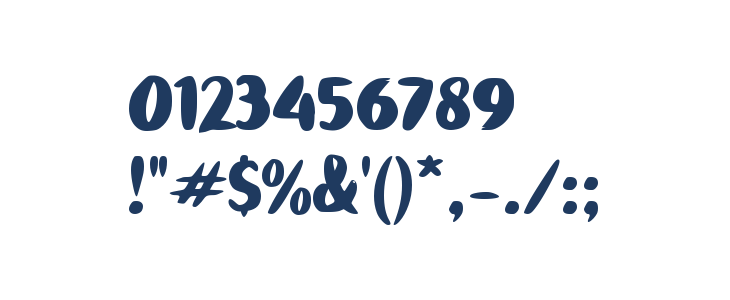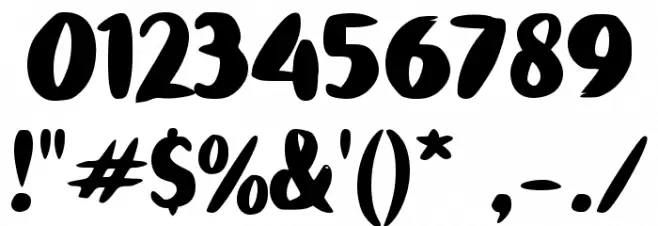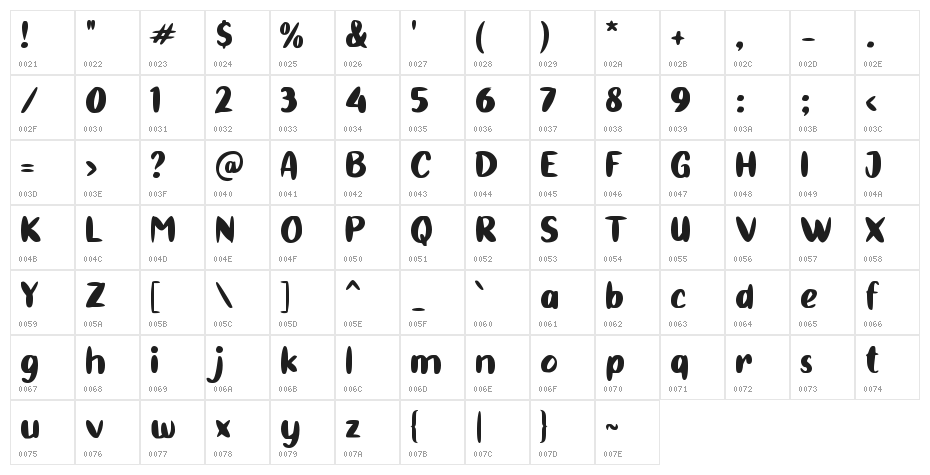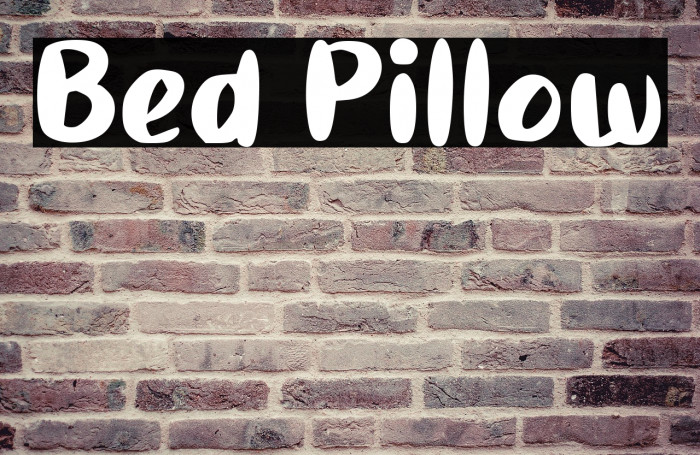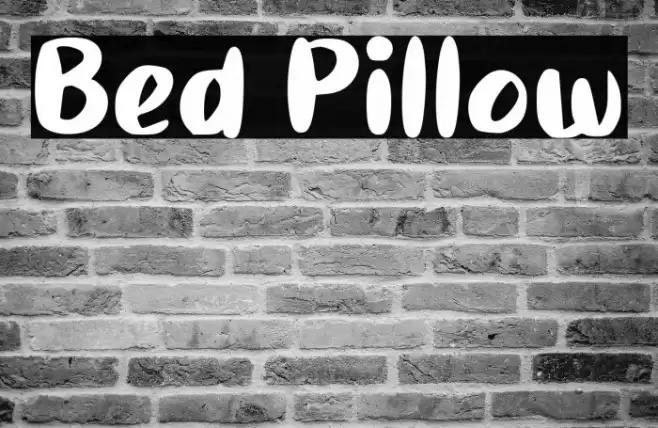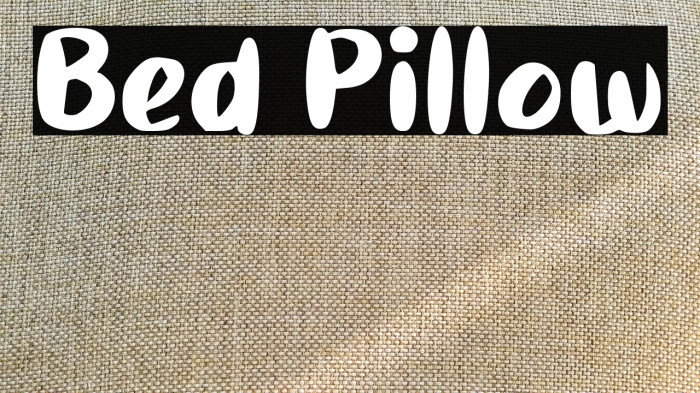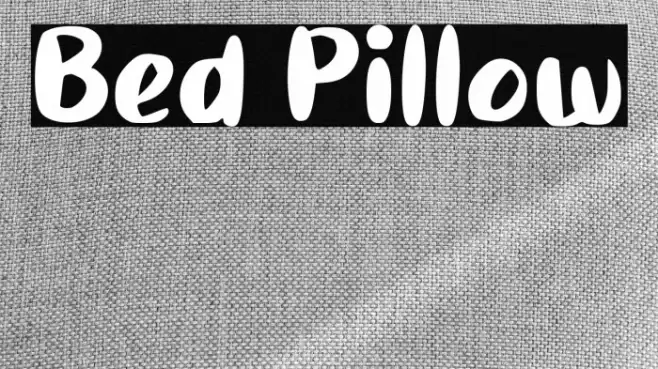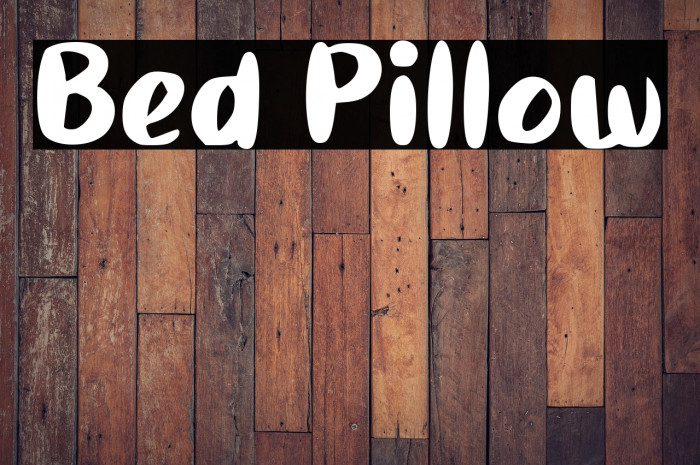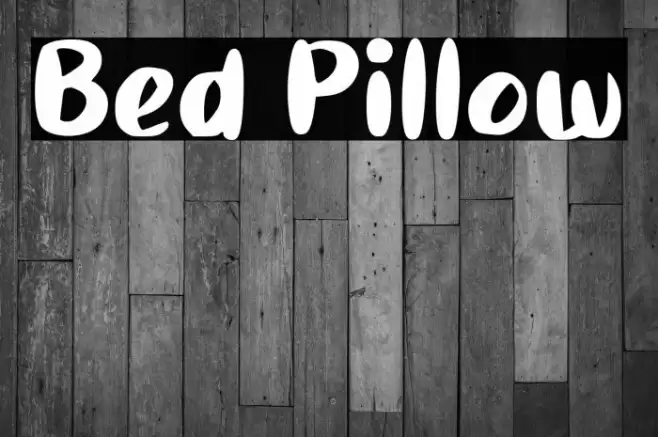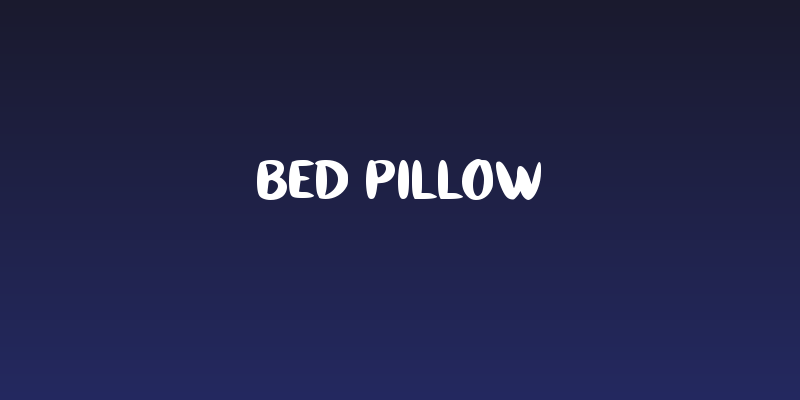
Bed Pillow Font
Bed Pillow Description
This font features a playful and bold style, characterized by its thick, rounded strokes and slightly irregular shapes. The letters have a hand-drawn appearance, giving them a friendly and approachable feel. The uppercase and lowercase letters maintain a consistent weight, contributing to a cohesive look. The numbers and special characters follow the same design principles, ensuring uniformity across all glyphs. This font's unique style makes it stand out, while its readability remains intact, making it suitable for various creative applications.
| Proposed Projects | Ideal for children's books, playful branding, greeting cards, and posters. |